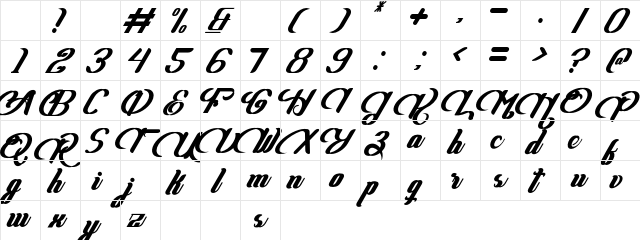
Complete Ghea Adasta Regular glyph index. Displaying only characters natively supported by Ghea Adasta Regular font.
Ghea Adasta is a composed and adaptable typeface that performs quietly and consistently across a wide range of design contexts.